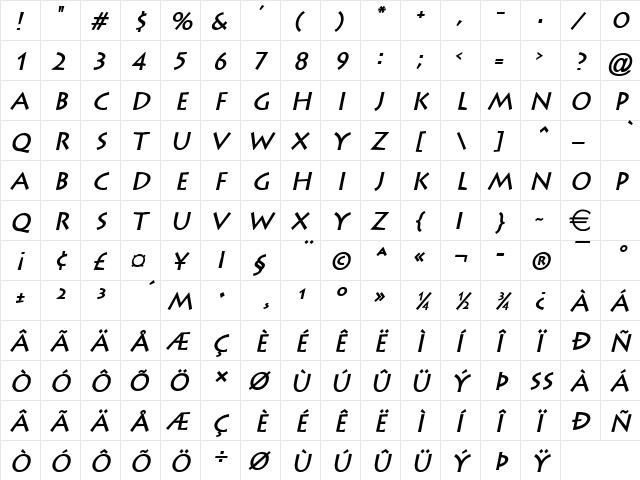
Liste BoldItalic
Design Context for Liste Typeface
Liste takes a measured approach to typography — its balanced proportions and neutral character make it a reliable workhorse for both digital and print work. Its italic angle brings a sense of urgency and motion to the letterforms. Its bold stroke weight gives it real presence on the page.
Pro Tip: Use Liste for emphasis, pull quotes, and subheadings where its slanted energy can add rhythm to the layout.